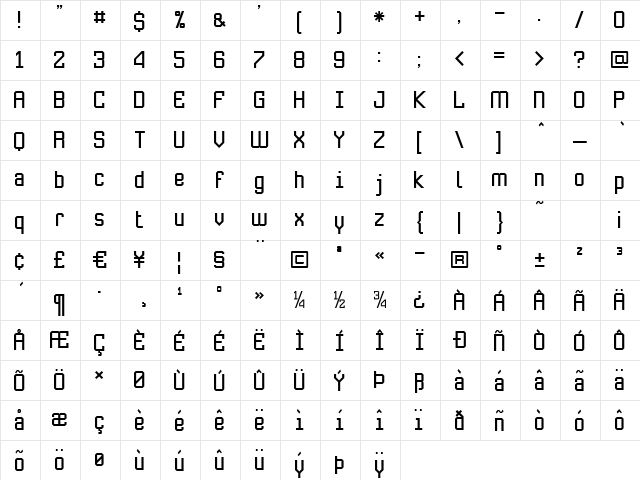
Submarine Light
Design Context for Submarine Typeface
Submarine is a composed and adaptable typeface that performs quietly and consistently across a wide range of design contexts. Its slender proportions lend an understated elegance to any composition.